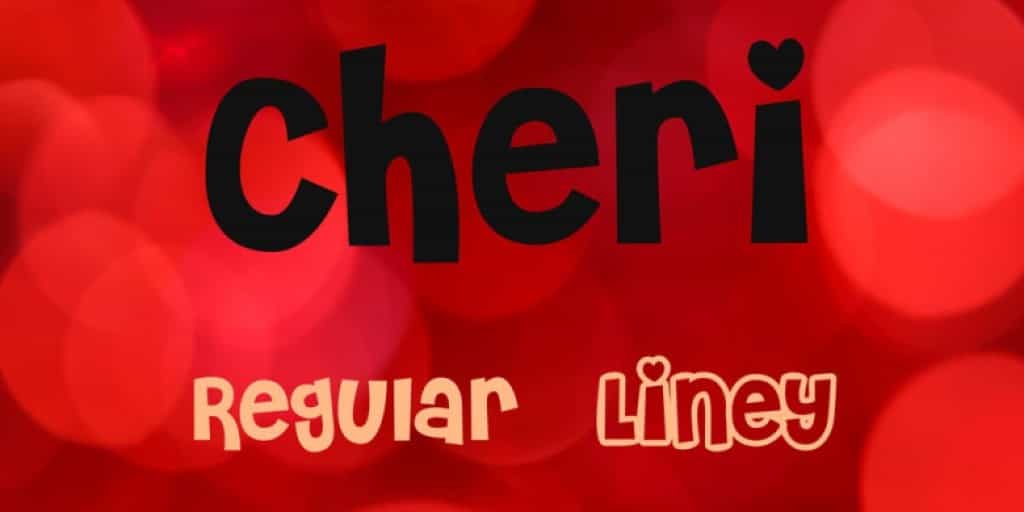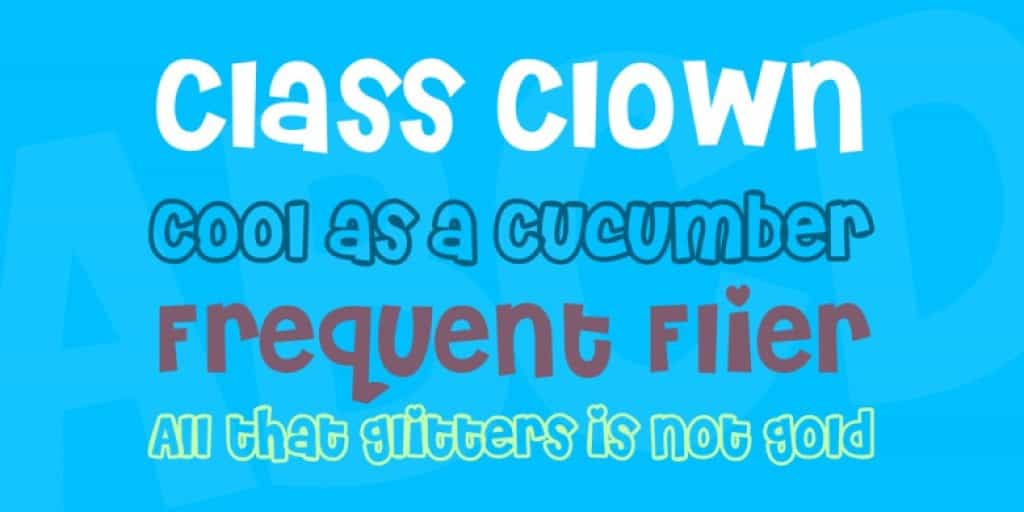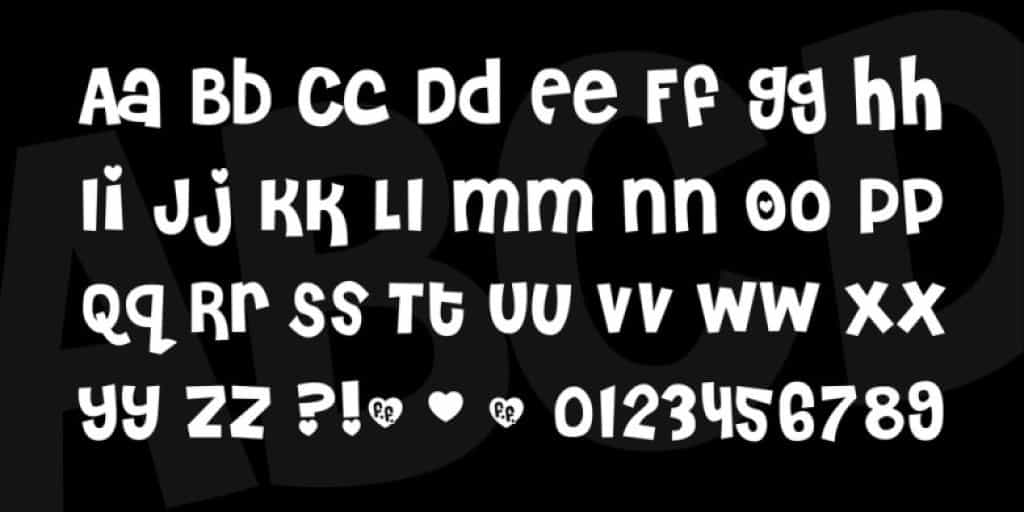
Today while writing to my beloved admirer Jessica Alba, I had an epiphany: the children told me that for Valentine’s Day they needed a font that was not as old fashioned as Kinkie. Then, I was able to launch Cubert and my fingers began tapping to the rhythm of his adorable theme; now you will also feel the joy of writing cute messages to your reserved math genius in the Advanced Calculus class!